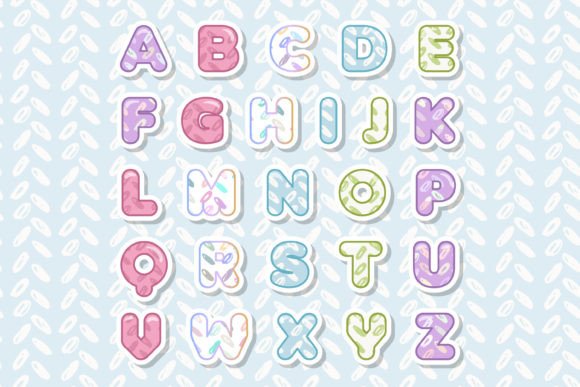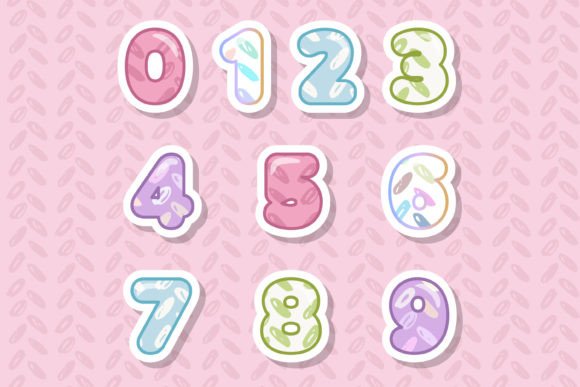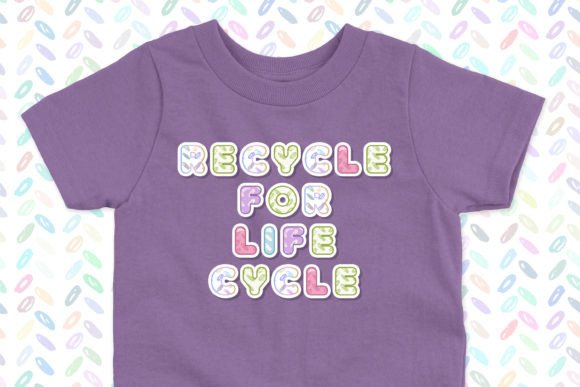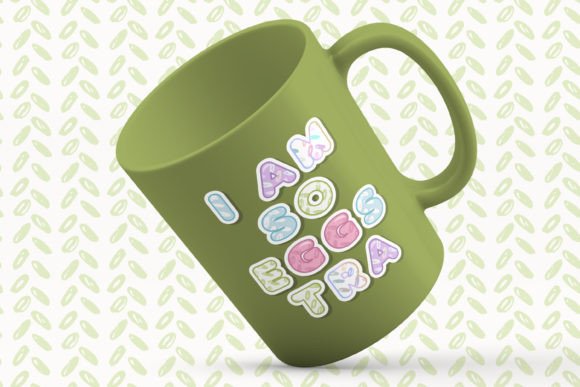
Introduction to Quirky Oval Font
Quirky Oval is an incredibly cool color font designed in the style of Ellipse Pattern.
Whether you use it for custom designs, DIY crafts, or just any creation that requires a lovely touch, this font will be an amazing choice Note.